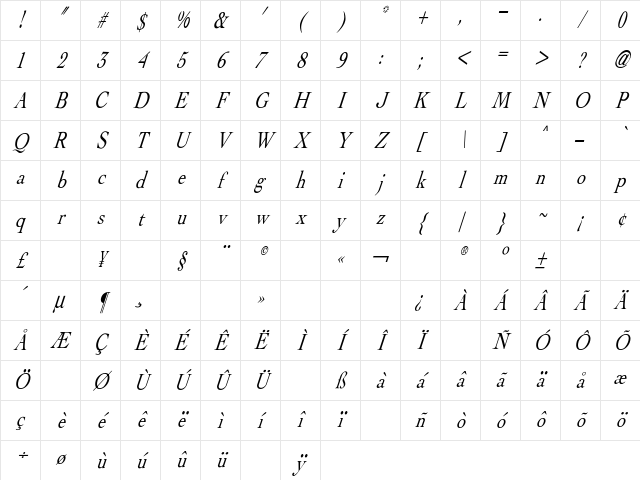
Albatross-Italic Regular
Design Context for Albatross-Italic
Albatross-Italic is a composed and adaptable typeface that performs quietly and consistently across a wide range of design contexts. The slanted form adds forward momentum and visual energy.
Pro Tip: Use Albatross-Italic for emphasis, pull quotes, and subheadings where its slanted energy can add rhythm to the layout.